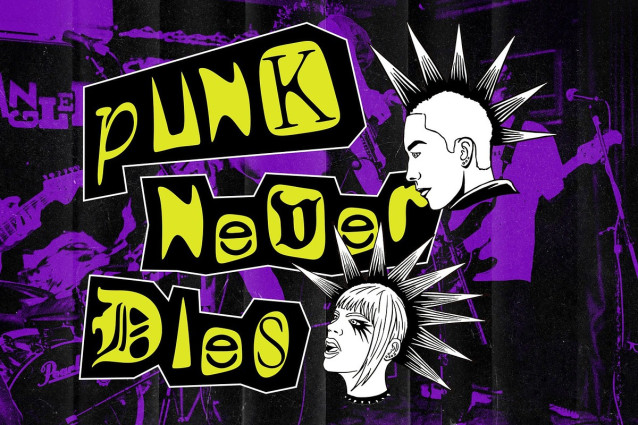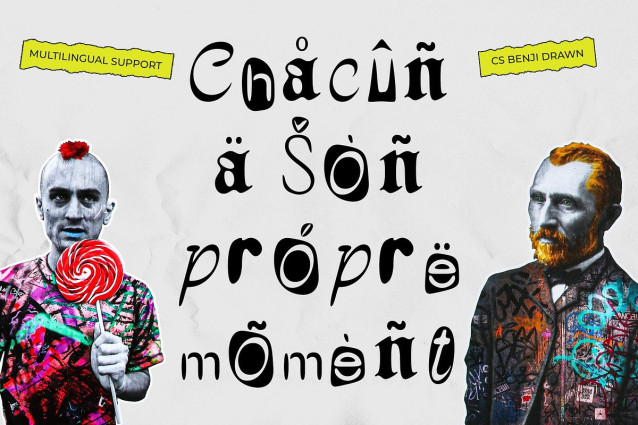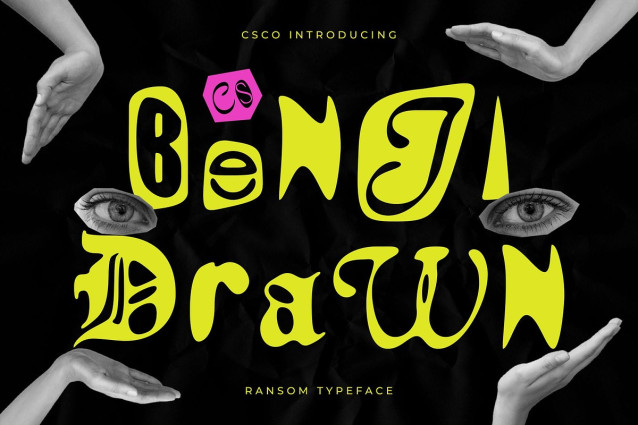
CS Benji Drawn Font
CS Benji Drawn Font is a display font that embraces the visual energy of ransom notes and collage art. Each character appears as though it’s been cut out from a different source—like magazines, newspapers, or flyers—resulting in a mismatched yet cohesive alphabet full of personality.
Hand-Drawn Texture for Raw Expression This font captures a raw, DIY spirit with its drawn effect—rough, sketch-like textures enhance the ransom style, giving it a handmade, imperfect, and expressive feel. The layering of digital imperfection over visual fragmentation makes this font feel organic, emotional, and filled with artistic energy.
Visually Surprising and Character-Rich Despite its chaotic nature, the font maintains balance, offering a form of “organized disorder” that grabs attention without becoming unreadable. This unique combination of unpredictability and control creates a bold statement—perfect for designs that aim to be loud, unconventional, and full of life.
Ideal for Experimental and Indie Design Projects This font adds a personal touch and is made for those who design outside the lines. Whether it’s indie music posters, zines, DIY album covers, or experimental branding, this font brings a unique, rebellious, and expressive tone. It’s a great choice for visual identities that want to stand out with originality, creative flair, and a touch of wild, unapologetic charm.